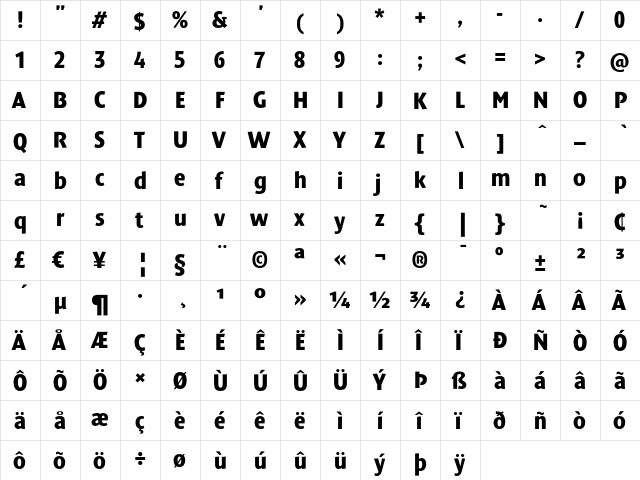
DendaNewCond Black
Design Context for DendaNewCond Typeface
DendaNewCond takes a measured approach to typography — its balanced proportions and neutral character make it a reliable workhorse for both digital and print work. Its narrow stance lets it pack a punch even in space-constrained designs.
Pro Tip: Use DendaNewCond in both headline and body roles to test its range before committing to a single application.